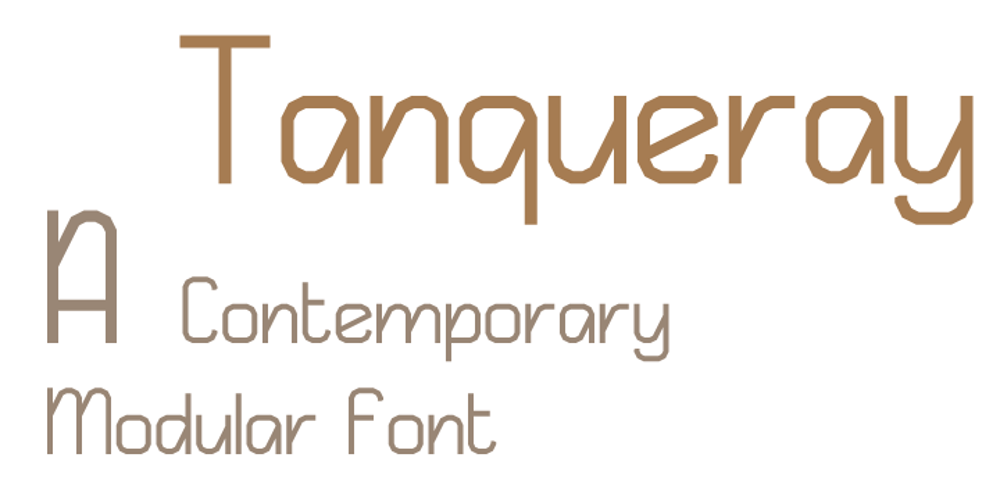
Tanqueray
Tanqueray font
Tanqueray Font Family was designed by Wilson Thomas and published by Funk King. Tanqueray contains 1 styles and family package options. Tanqueray is a modern new and sleek modular font. It is contemporary in its design; but also playful and dramatic. Intoxicating.